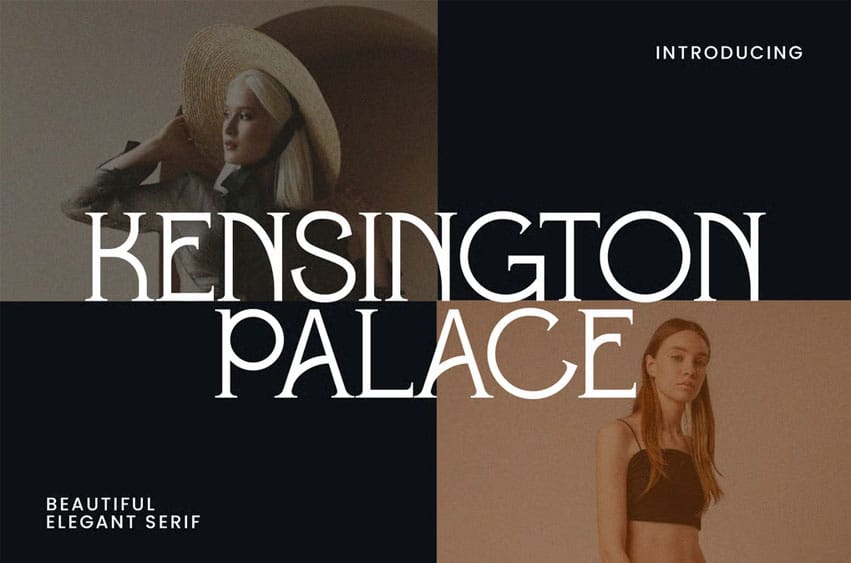
Kensington Palace Font Elegant Serif Font that feels beautiful, classy, elegant, and modern. This font is perfectly suited for a wide variety of projects, such as signatures, stationery, logos, wedding, typography quotes, magazine or book covers, website headers, clothing, branding, packaging design, and more. Also, fashion-related branding or editorial design displays both masculine and feminine qualities.